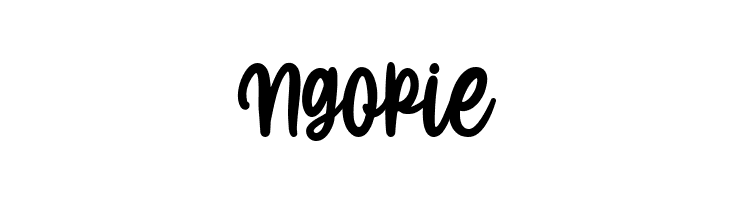
A bold, textured font with a hand-drawn, brush-like appearance.
A playful and elegant handwritten script font with smooth, flowing strokes.
A whimsical, brush-style font with fluid, artistic strokes.
A futuristic, geometric italic font with sharp lines and unique negative space.
A bold, distressed font with a fractured, textured appearance.
An elegant, decorative script font with intricate swirls and flourishes.
A graceful and elegant script font with flowing cursive letters.
A bold, flowing script font with expressive, interconnected strokes.
A flowing, cursive script font with elegant, connected characters.
A bold, brush-style font with dynamic, hand-painted strokes.
设计师偏爱 Roughback Demo, monday spring, Enchanted Brush, PEOPLE QUARK Italic and Fracture5758 Regular,因为其造型干净、适用范围广—— 从品牌识别到落地页、海报都能胜任。